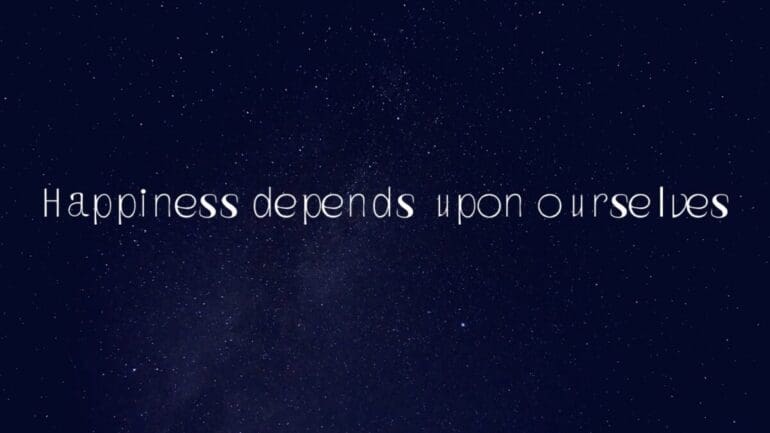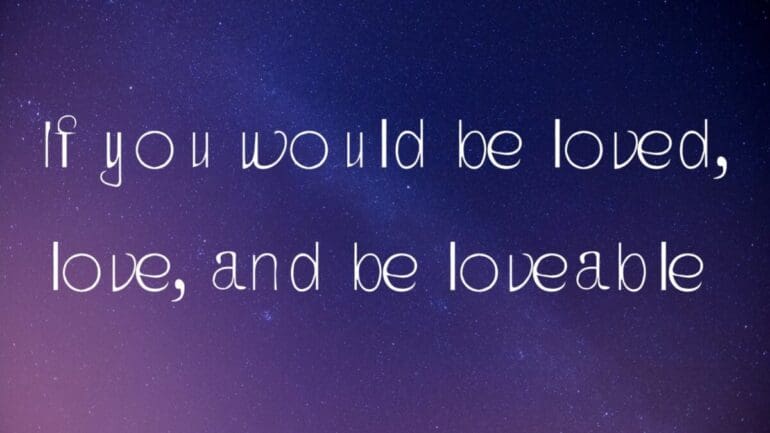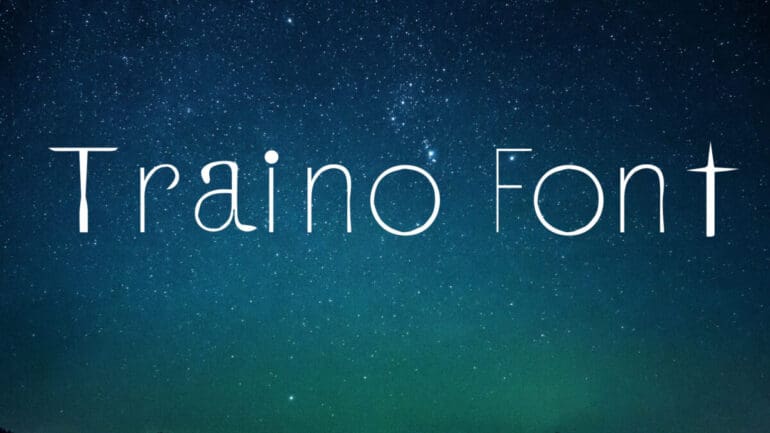
Traino Font
Traino Font. This typeface contains quirky characters such as bold slashes in some of the characters in the typeface are very attractive and especially its “f” character, which is seized the attraction of its viewers. So, make your designs more beautiful with the help of this handwritten typeface. This typeface well goes with many other typefaces and can bring a wonderful look with the use of this combination.